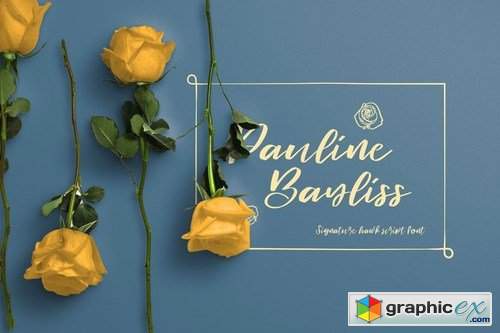
Signature Hawk - Script Font
Signature Hawk font is handwritten script font. It has casual, classy, and beauty. It’s a great font for fashion, apparel projects, signature, album cover, logo, branding, magazine, social media, & advertisements, but also works great for other projects.